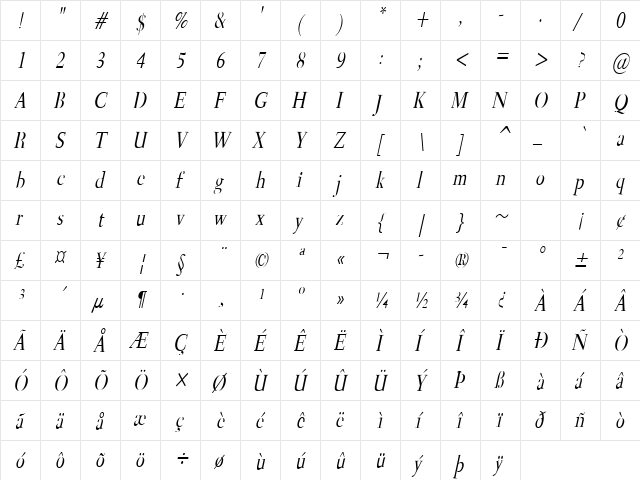
Transit-Condensed Italic Font Preview
Design Context for Transit-Condensed Typeface
Transit-Condensed takes a measured approach to typography — its balanced proportions and neutral character make it a reliable workhorse for both digital and print work. The dynamic lean of this cut emphasises speed and emphasis in any layout. The condensed width makes it efficient for tight spaces without sacrificing legibility.
Pro Tip: Use Transit-Condensed for emphasis, pull quotes, and subheadings where its slanted energy can add rhythm to the layout.